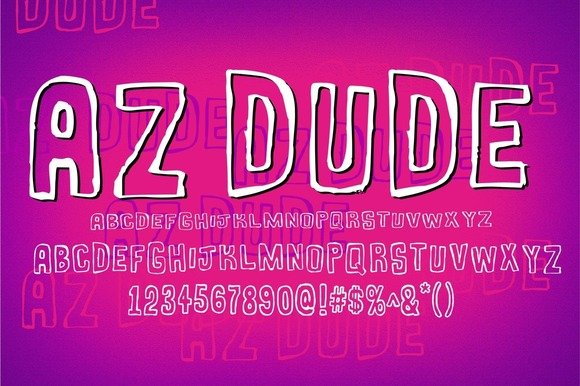
Discovering the Perfect Font: The AZ Dude Font
Have you ever been working on a project, staring at a blank screen, and suddenly, a spark of creativity hits you? You start brainstorming ideas, and before you know it, your design begins to take shape. For designers, this moment is priceless. It’s the moment when everything falls into place, and the design comes alive. One font that can help you achieve this magical moment is the AZ Dude Font.
The AZ Dude Font is an outline font that exudes a playful vibe, making it perfect for a wide range of designs. Whether you’re creating a logo, social media graphics, or even a children’s book, this font is sure to add a touch of fun and whimsy to your work. As a designer, having access to a versatile font like the AZ Dude Font can be incredibly valuable, allowing you to experiment and push the boundaries of your creativity.
AZ Dude Font Key Features
- Unique Characteristics: AZ Dude Font features a distinctive, hand-drawn style with a relaxed, casual feel, making it ideal for use in creative and informal designs.
AZ Dude Font Review
As a designer, I was initially drawn to the AZ Dude Font due to its laid-back, casual vibe ✨. The font’s distressed aesthetic and rough-around-the-edges feel makes it perfect for creating a relaxed, retro-inspired look. The font’s versatility also shines through in its ability to be used for a wide range of applications, from branding to advertising to editorial content.
One of the standout features of the AZ Dude Font is its extensive character set ✨. The font includes a vast array of glyphs, including ligatures, swashes, and ornaments, making it easy to create visually interesting and unique designs. Additionally, the font’s OpenType features allow for advanced typographic control, enabling designers to customize the font’s behavior and create complex, customized layouts.
- ⚠️ The font’s distressed aesthetic can be overwhelming or distracting if used in excess. It’s essential to strike a balance between the font’s rough edges and other design elements.
- ⚠️ The font’s OpenType features can be overwhelming for designers without extensive knowledge of advanced typography. A steep learning curve may deter some users.
Overall, the AZ Dude Font is a solid addition to any designer’s toolkit. While it may have its limitations, its unique aesthetic and versatility make it a valuable asset for creating eye-catching, attention-grabbing designs ✨.
Practical Application Guide for AZ Dude Font
Some popular use cases for the AZ Dude Font include:
- Creating fun and playful designs for social media and advertising.
- Adding a casual, laid-back vibe to your branding and marketing materials.
- Designing posters, flyers, and other promotional materials.
Remember to experiment with different font sizes, colors, and styles to get the most out of the AZ Dude Font.
Alternatives to AZ Dude Font
Bebas Neue is a modern sans-serif font that offers a similar casual and friendly feel to AZ Dude Font. It’s ideal for use in titles, headings, and short paragraphs where a clean and legible font is required. Bebas Neue has a more refined and elegant appearance compared to AZ Dude Font, making it suitable for a wider range of design projects.